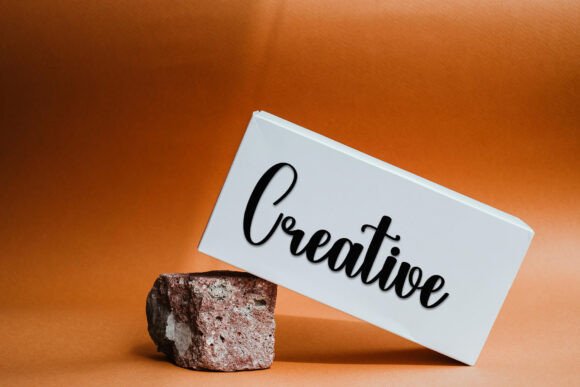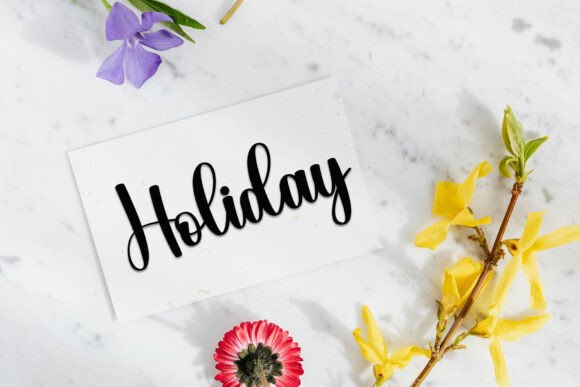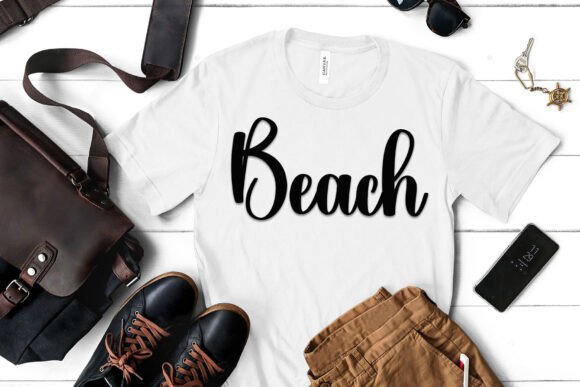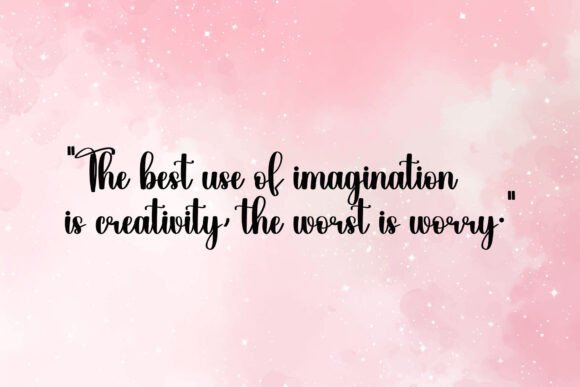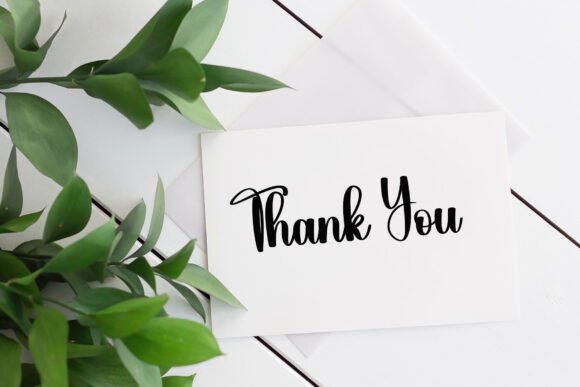
Introduction to Over Snow Font
Over Snow is a trendy handwritten font with a contemporary atmosphere and impeccable form, inspired by timeless classic calligraphy.
It will add elegance and class to any of your design projects .
Key Features of Over Snow Font